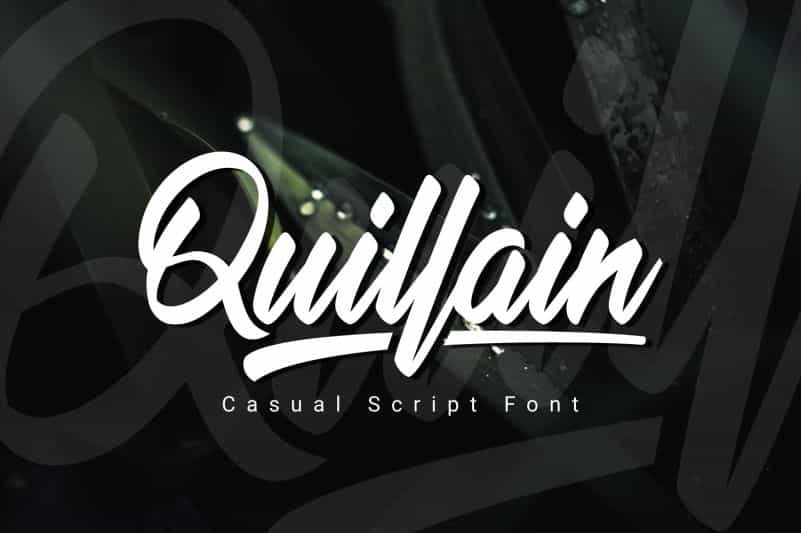
Quillain font is casual and fun and has a handwritten style where the letter has been created by using a marker. Clean and simple this font is just what you need for all of your logos, branding, social media and all your crafty DIY needs.